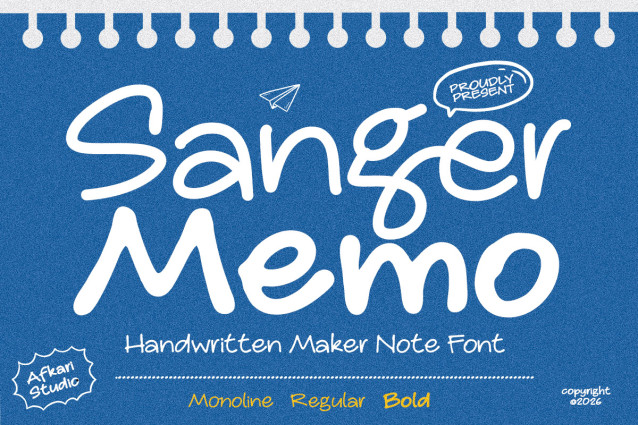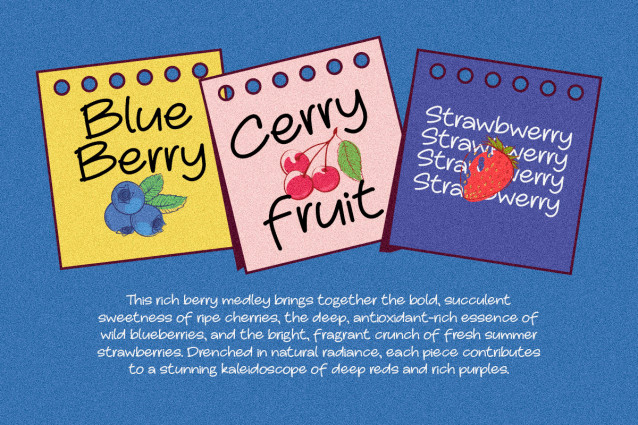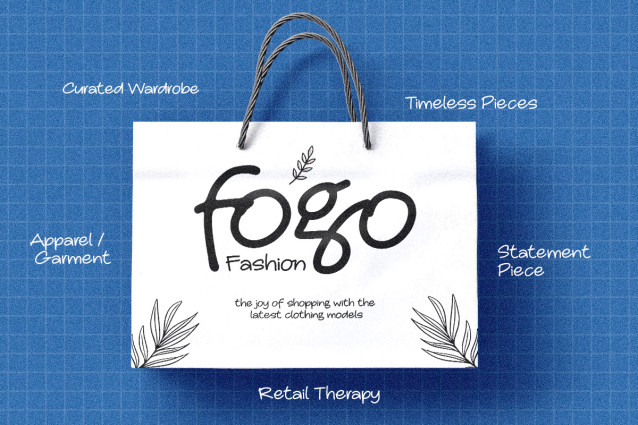
Sanger Memo – Handwritten Marker Note Font
Sanger Memo is a casual handwritten marker note font designed to capture the authentic feel of spontaneous handwriting and quick creative notes. With its smooth marker strokes, organic texture, and natural flow, this font brings warmth, personality, and a handmade touch into every design.